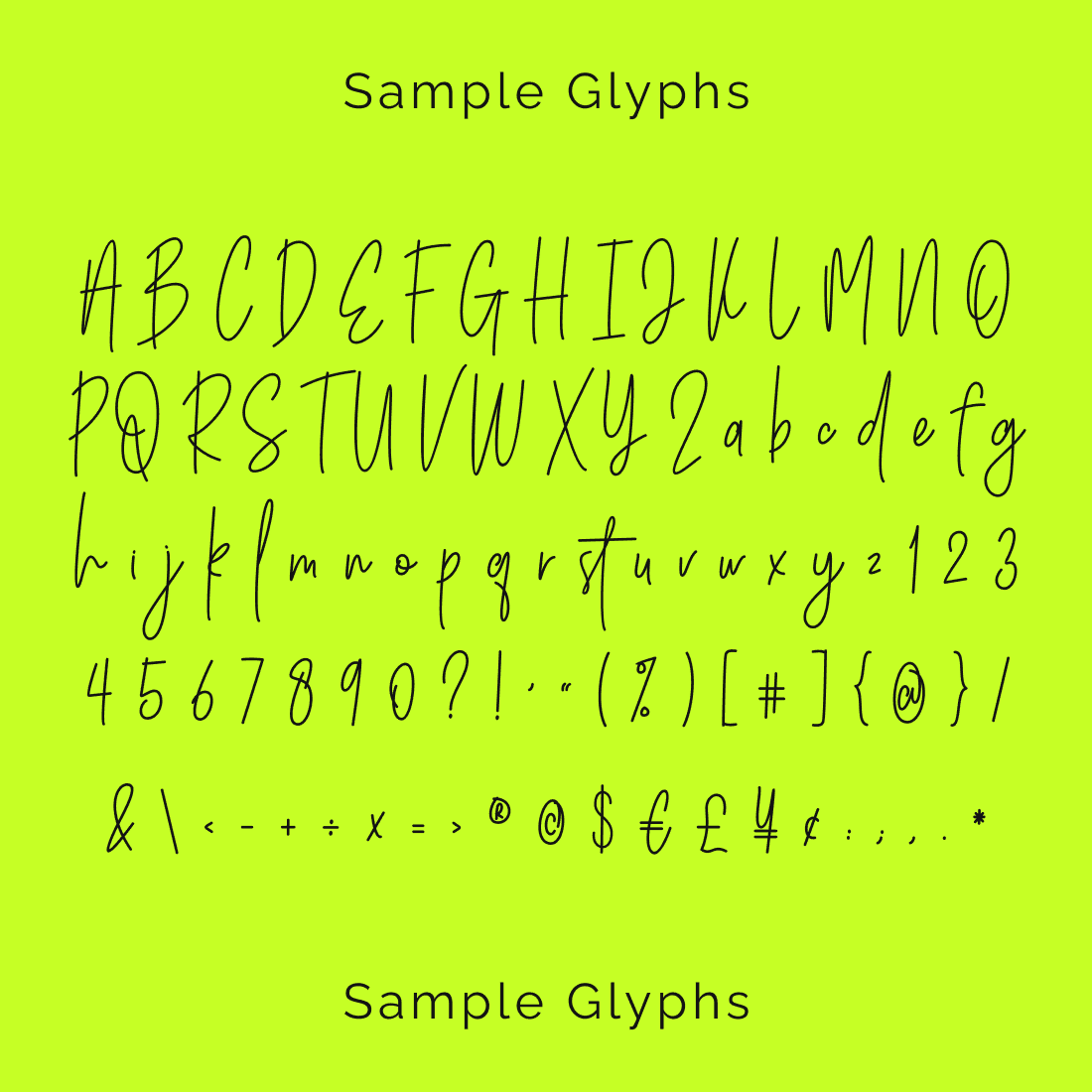
Patrick Cleo Font
Patrick Cleo Handwritten Font
Patrick Cleo Font is a font based on the designer’s own handwriting. It is developed to bring an impressive and useful handwriting effect to your texts.
It has all the basic latin characters as well as most of the latin extended ones. It also includes some fancy glyphs like heavy quotation marks and the floral heart! Ligatures, small caps and old style numbers are available as OpenType features in the downloaded version of this font.